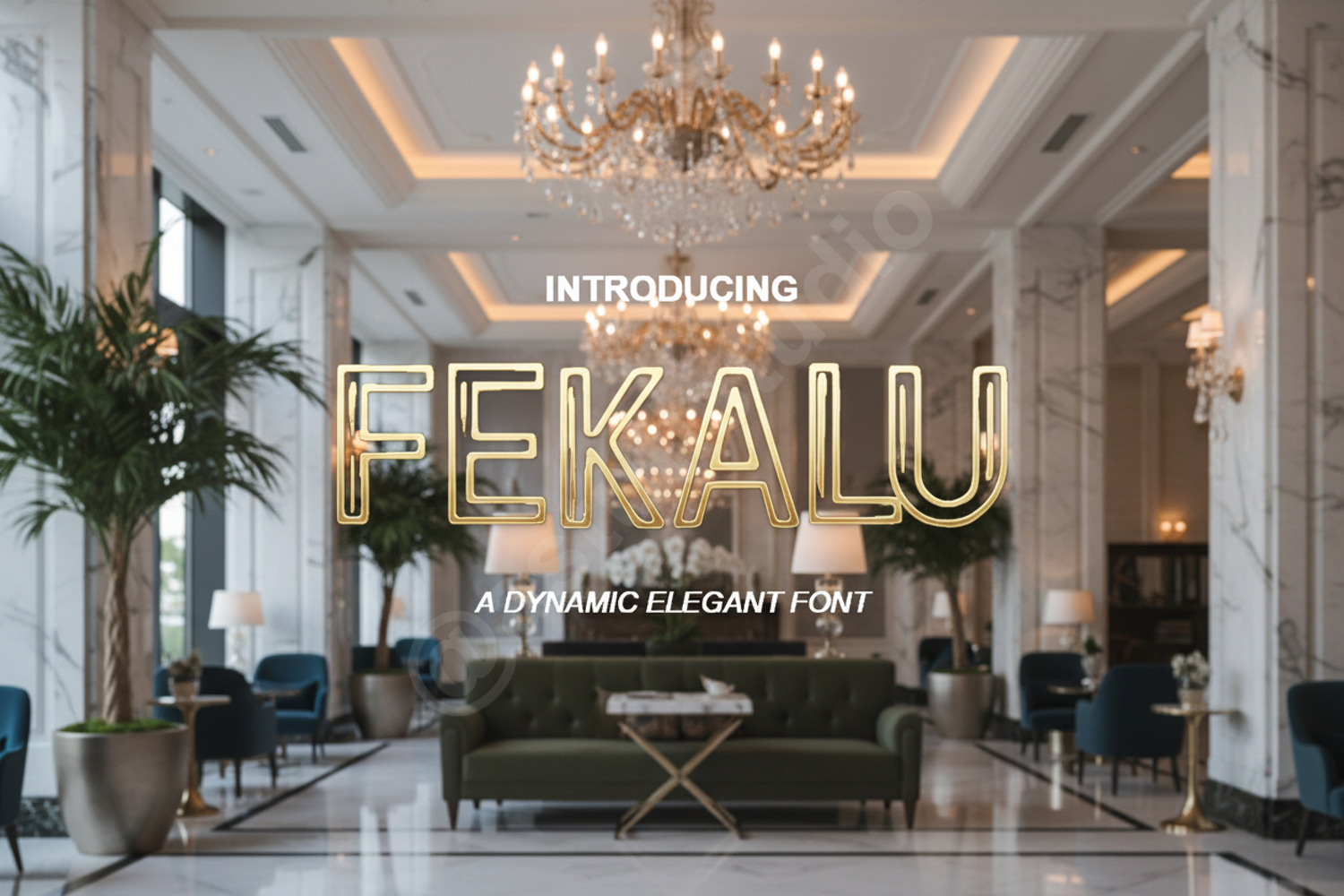
Fekalu - Elegant Modern Sans Serif Typeface
Fekalu
Fekalu is a premium modern sans serif typeface that balances minimalist aesthetics with high-end functionality. Designed for creators who demand clarity and sophistication, Fekalu offers clean lines and balanced proportions that make it a versatile addition to any professional creative toolkit. Whether you are working on a high-fashion brand or a contemporary tech startup, this font delivers a polished and professional edge to every project.
- Luxury Branding and Visual Identity
- Modern Logo Design and Wordmarks
- Editorial Layouts and Magazine Spreads
- Social Media Graphics and Marketing Materials
- Wedding Stationery and Elegant Invitations
- Website Headers and User Interfaces